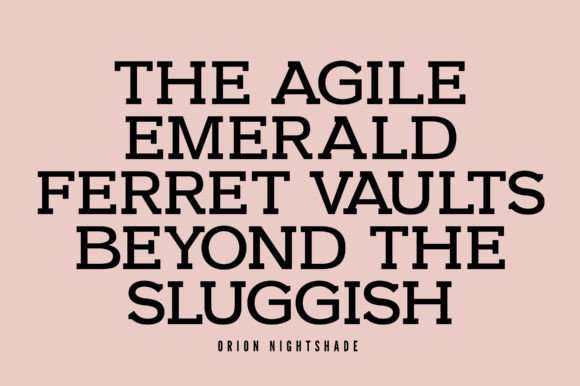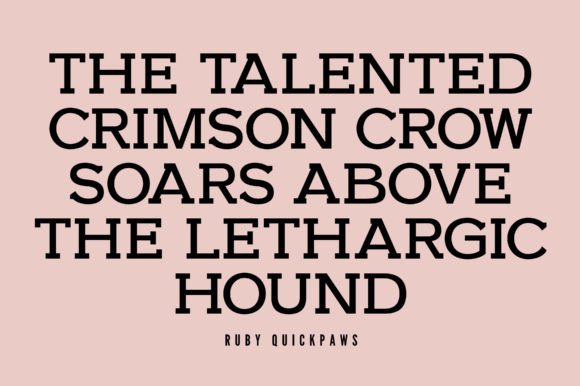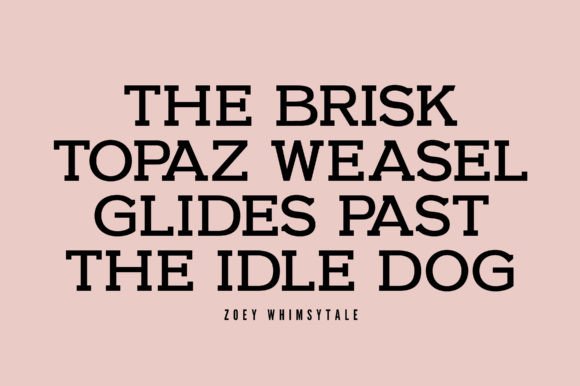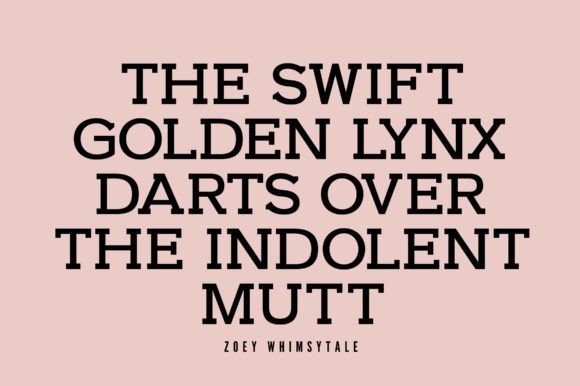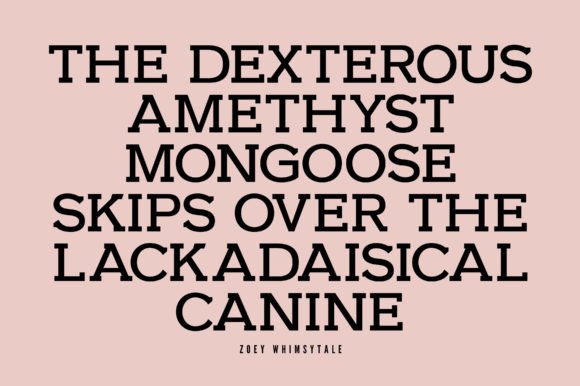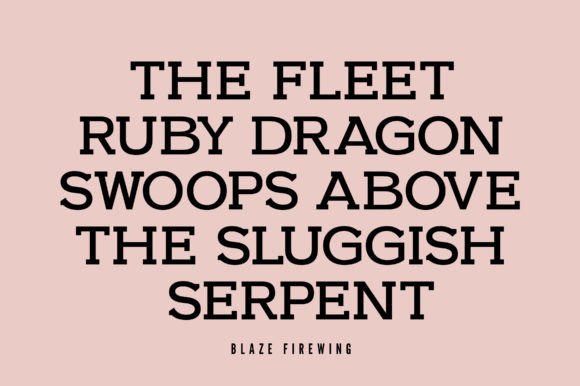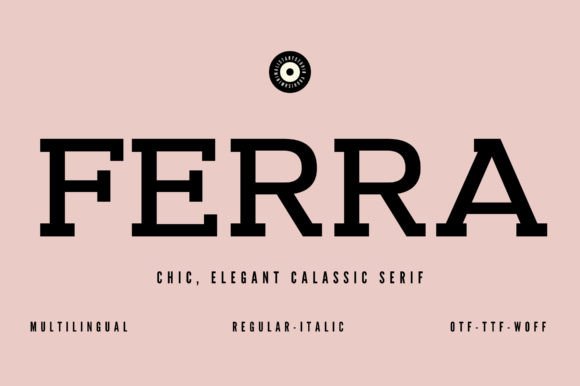
Unleash the Power of Clean Lines and Timeless Aesthetics with Ferra Font
In the world of typography, few typefaces manage to strike a balance between classic charm and contemporary minimalism. However, Ferra, the ultimate slab serif typeface, effortlessly bridges this gap with its geometric precision and modern sensibility. Designed to captivate and inspire, Ferra offers a unique blend of clean lines, timeless aesthetics, and unparalleled versatility, making it the perfect choice for designers and crafters looking to elevate their work.
The Birth of Ferra: A Perfect Blend of Classic and Modern
Ferra is more than just a typeface; it’s a design statement. With its roots in traditional slab serif fonts, Ferra has evolved to incorporate modern elements, making it a perfect blend of classic and contemporary design. Its geometric precision gives it a clean and crisp look, while its modern sensibility ensures it remains fresh and relevant. This unique combination makes Ferra an excellent choice for a wide range of design projects, from branding and advertising to editorial and digital media.
Unparalleled Versatility: The Hallmark of Ferra
One of the standout features of Ferra is its unparalleled versatility. This slab serif typeface adapts seamlessly to any project, whether you’re designing a sleek logo, crafting compelling headlines, or curating a cutting-edge editorial layout. Ferra’s clean lines and geometric precision make it perfect for high-impact branding, while its classic charm and timeless aesthetics ensure it remains elegant and sophisticated in editorial settings.
Designing with Ferra: Endless Possibilities
With Ferra, the possibilities are endless. This typeface is designed to inspire creativity and push the boundaries of modern design. Here are just a few ways you can use Ferra to elevate your work:
- Branding: Create a lasting impression with Ferra’s clean lines and geometric precision. Perfect for logos, business cards, and corporate identity.
- Editorial Design: Add a touch of elegance and sophistication to your editorial layouts with Ferra’s classic charm and timeless aesthetics.
- Advertising: Grab attention and make a statement with Ferra’s modern sensibility and high-impact design.
- Digital Media: Use Ferra to create stunning digital content, from social media graphics to website headers.
The Benefits of Using Ferra
So, why choose Ferra for your design projects? Here are just a few benefits of using this versatile slab serif typeface:
- Unique Design: Ferra’s blend of classic and modern elements makes it a unique and distinctive typeface that sets you apart from the crowd.
- Improved Readability: Ferra’s clean lines and geometric precision make it easy to read, even at small sizes.
- Flexibility: Use Ferra across a range of design projects, from branding and advertising to editorial and digital media.
- Timeless Aesthetics: Ferra’s classic charm and timeless aesthetics ensure it remains fresh and relevant for years to come.
In conclusion, Ferra is more than just a typeface; it’s a design statement. With its unique blend of classic charm and contemporary minimalism, Ferra offers unparalleled versatility and endless possibilities for designers and crafters. Whether you’re looking to create a lasting impression with high-impact branding or add a touch of elegance to your editorial layouts, Ferra is the perfect choice. So, unleash the power of clean lines and timeless aesthetics with Ferra, and take your design work to the next level.
Get Ready to Elevate Your Design with Ferra